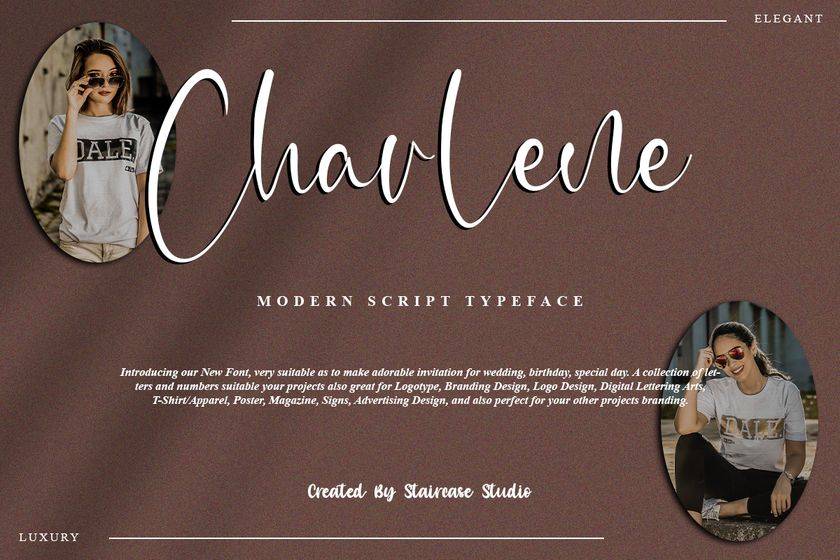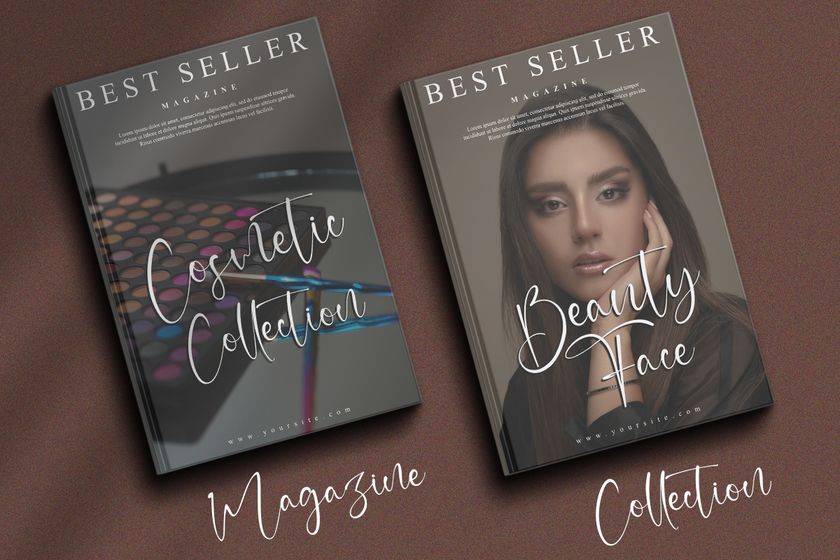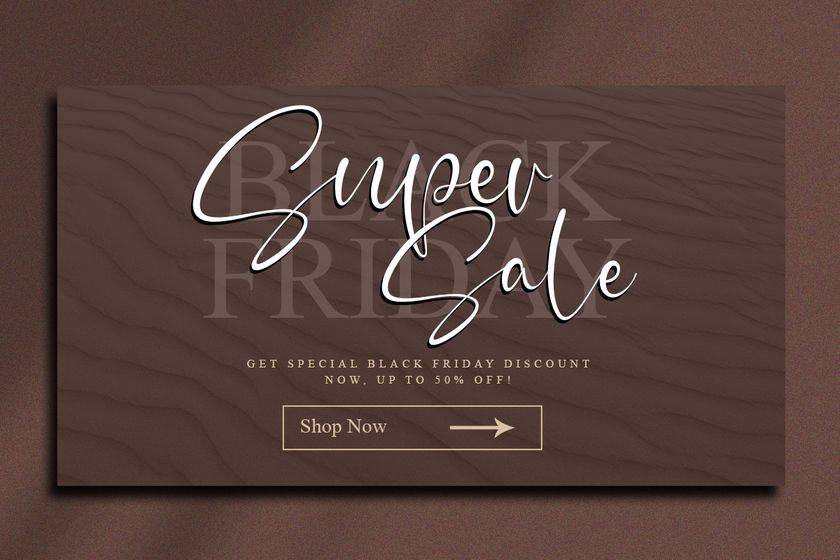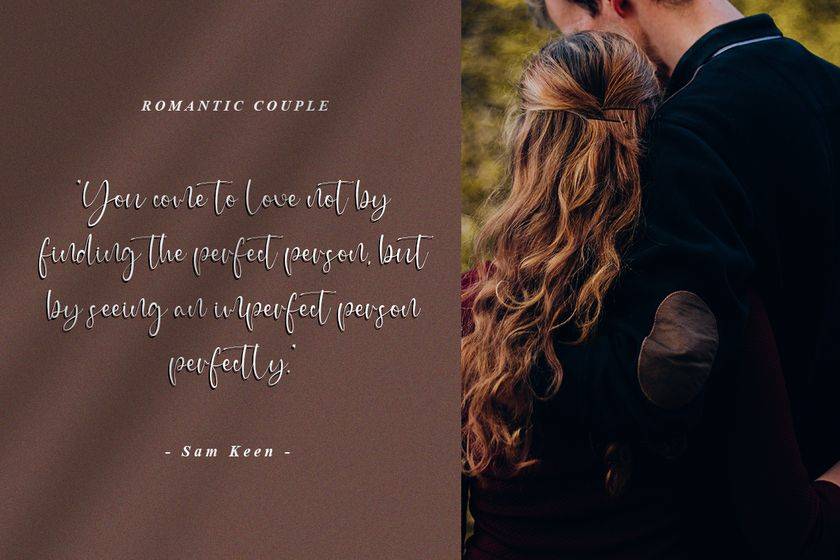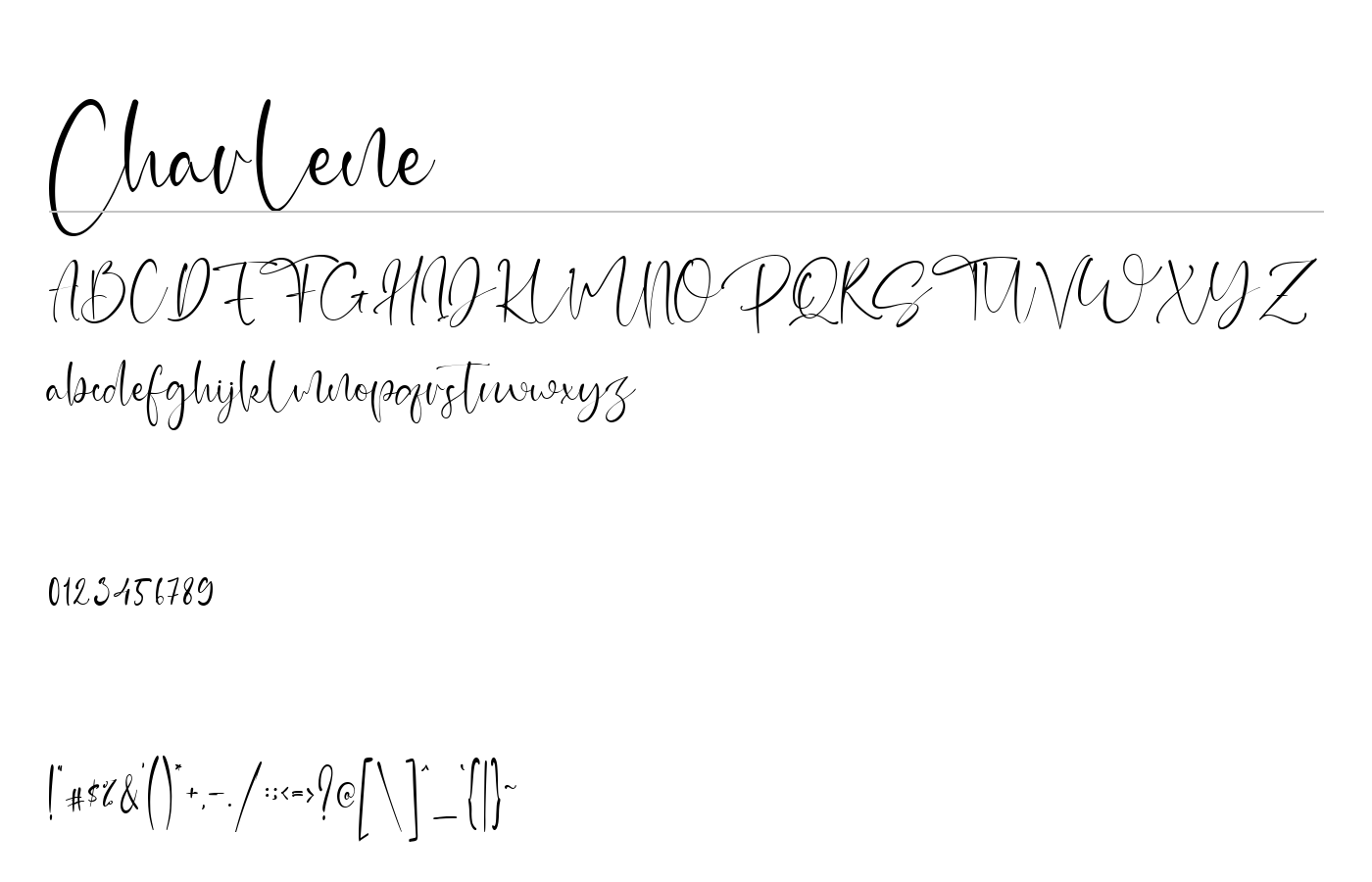
Charlene is a delicate, handwritten script font with slender, flowing lines that give it an elegant and airy feel. Its tall, narrow letterforms with subtle flourishes make it perfect for feminine branding, invitations, and stylish editorial use where a personal, graceful touch is desired. This font works best in headlines and decorative text, adding a light, sophisticated charm without overwhelming the design.
Charlene Font
About Charlene Font
| Font family | Charlene Font |
| Release date | 2021-11-05 |
| Designer | Staircase Studio |